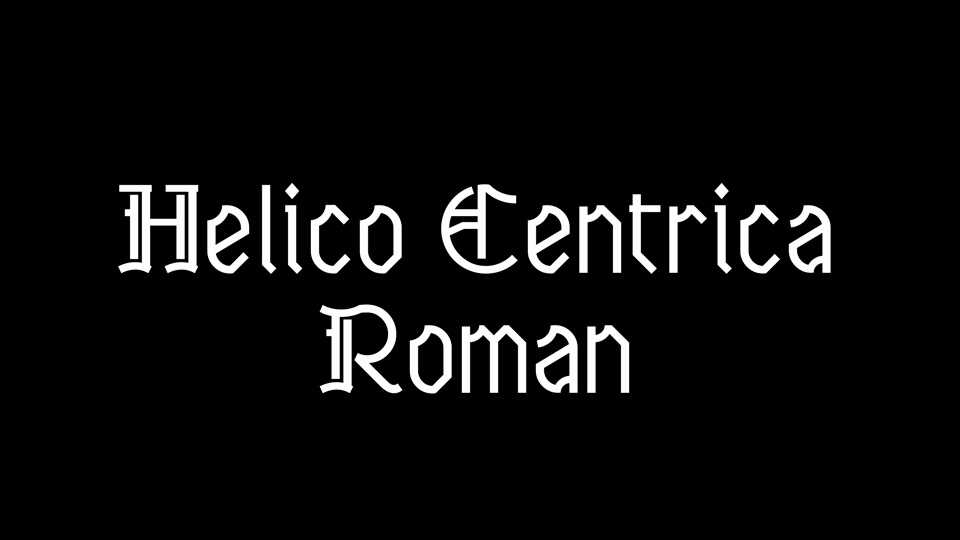
Download Helico Centrica font, the illegitimate child of an encounter between a Blackletter and a geometric sans serif font. Helico Centrica is suitable for display and graphic designs but not for long pieces of text.
Designer: Toby Le Rhone